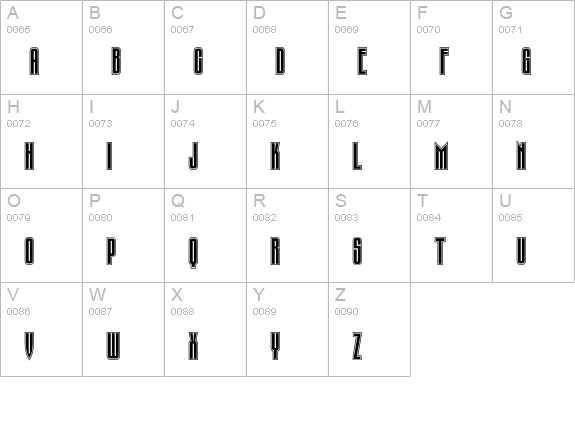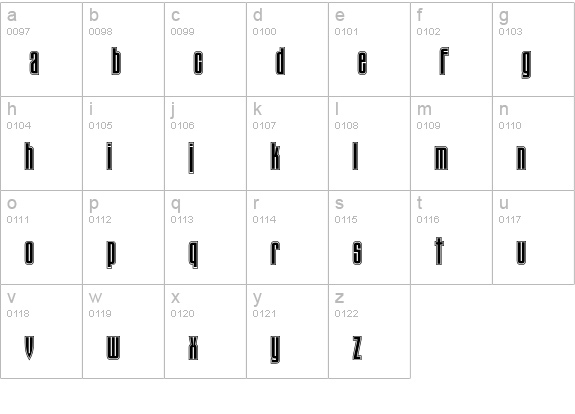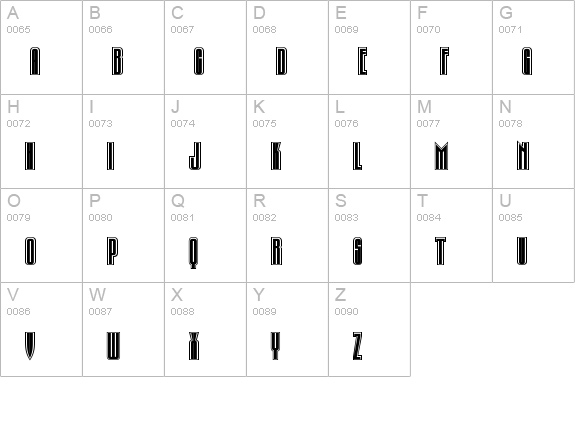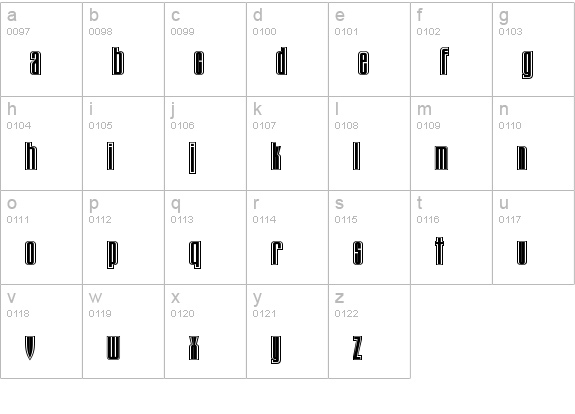
PT TauernInline Cyrillic Font Details
Introducing the PT TauernInline Cyrillic font, a stunning typeface that combines elegance with a touch of modernity. This unique font is perfect for adding a distinctive flair to your design projects, whether it's branding, advertising, or creating eye-catching headlines. Featuring a beautiful Cyrillic script, PT TauernInline Cyrillic font is designed to captivate and engage your audience. Its intricate and decorative inline style adds a sense of sophistication and creativity to any design it graces. What sets PT TauernInline Cyrillic font apart is its versatility. It seamlessly adapts to various design contexts, from elegant wedding invitations to trendy social media graphics. Its clean lines and balanced proportions make it highly legible, ensuring that your message is easily conveyed to your audience. One of the best things about PT TauernInline Cyrillic font is that it is free. Yes, you read that right! This exceptional font is freely available to download at FontsMarket.com. Now you can enhance your design projects without worrying about breaking the bank. Whether you are a professional designer or a creative enthusiast, PT TauernInline Cyrillic font is a must-have in your font collection. Its timeless appeal and artistic design will undoubtedly elevate your designs to new heights. So why wait? Head over to FontsMarket.com and download PT TauernInline Cyrillic font today. Unleash your creativity and let this remarkable font be the perfect companion for your design journey.